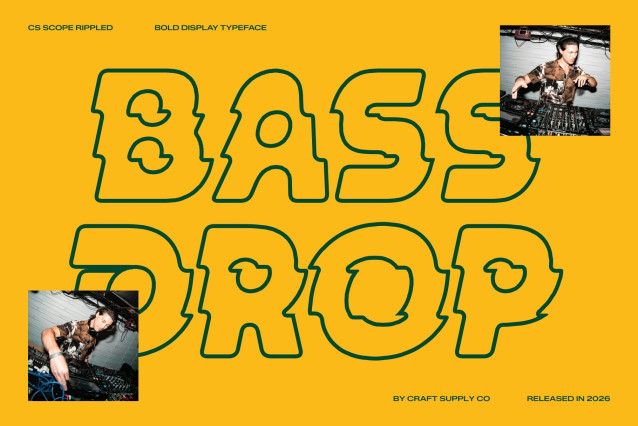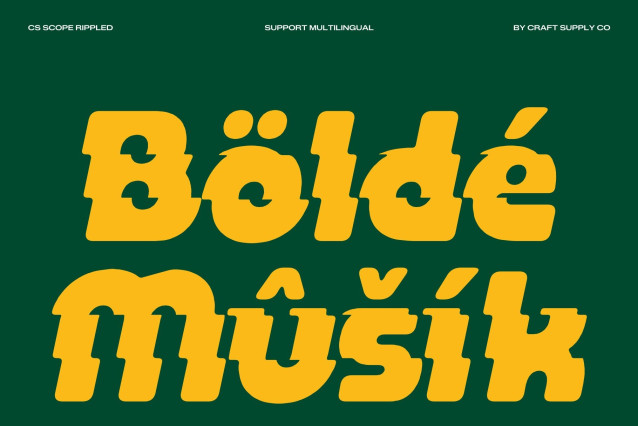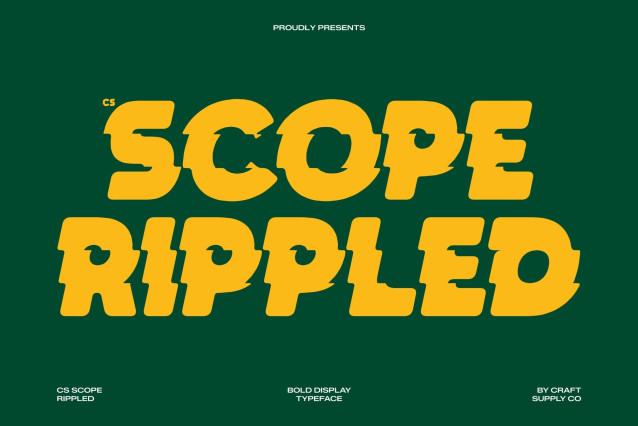
CS Scope Rippled – Bold Display Font with Fluid Geometric Energy
Bold and Attention-Grabbing Design
This is a bold display font crafted to instantly capture attention through its strong weight and confident visual presence. Every letterform is constructed with precision to ensure maximum impact at first glance, making it ideal for headline-driven compositions. Its bold structure enhances readability while delivering a commanding typographic voice that stands out in crowded visual environments. This font is designed to communicate messages with clarity, strength, and unmistakable visual authority.
Modern Geometry with Friendly Character
Built on clean geometric principles, this font combines structured design with a soft, approachable personality. The shapes are carefully balanced with subtle rounded details, creating a friendly and modern aesthetic that avoids harsh rigidity. This blend of precision and warmth results in a typeface that feels both professional and inviting. It is perfect for designers seeking a contemporary font that maintains structure while still feeling human and expressive.